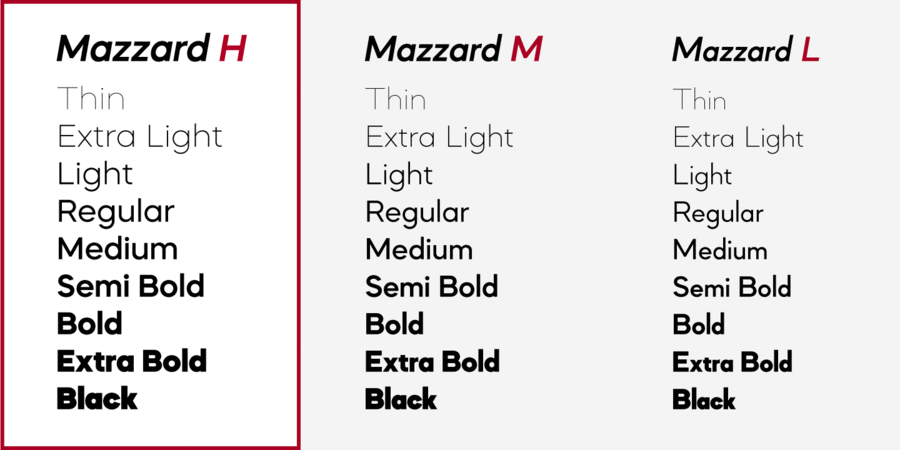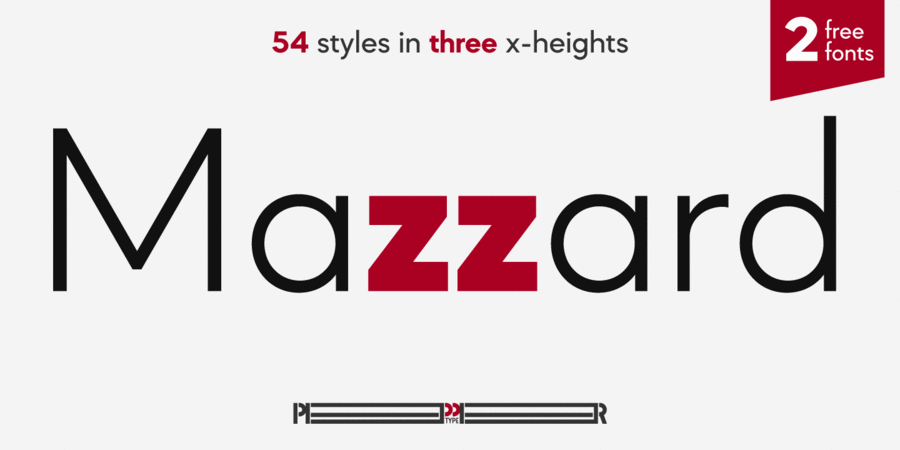
About Mazzard H is a part of a font superfamily Mazzard. This family has high lowercase characters. The superfamily contains of three geometric grotesques with three different x-heights. It features rich language support and offers a wide variety of alternate forms to choose from. The typeface was designed by Oleh Lishchuk in 2019.
Hit of 2010s Mazzard H supports 83 languagesUkrainian, English, German, Polish, Portuguese, Spanish, French, Russian, Czech, Dutch, Italian, Swedish, Turkish, Finnish, Belarusian, Serbian, Bulgarian, Estonian, Lithuanian, Albanian, Afrikaans, Basque, Breton, Valencian, Galician, Gaelic (Scottish), Danish, Indonesian, Irish, Icelandic (Win), Karakalpak, Catalan, Norwegian, Occitan, Rhaeto-Romance, Sami Lule, Tswansky, Uzbek (Lat.), Faroese, Frisian, Chamorro, Estonian (Win), South Sami, Albanian (Win), Hungarian, Upper leprechauny, Karelian, Latvian (Mac), Lithuanian (Mac), Maori (Mac), Moldovan (Lat.), Lower Sorbian, Romanian (Win), Slovak, Slovenian, Turkmen (Lat.), Croatian (Win), Estonian (Mac), Kurdish, Latvian, Maori, Romanian, Abazin, Avar, Agul, Adyghe, Darginsky, Ingush, Kabardino-Circassian, Kabardian, Karachay-Balkar, Kumyk, Lak, Lezghian, Macedonian, Mordovian-Moksha, Mordovian-Erzya, Nogai, Rutulian, Tabasaran, Tatar, Tsakhur, Chechen Functions of font family Mazzard HTypeface use in layout:
Associations for font family Mazzard HTypeface personality and character:
elementary, minimalistic, accurate, flat, static, logical, laconic, stable, automatic, artificial, cold, engineering, urban, cutting, crisp, schematic, clean, modern, sharp, thin, wire, glass, easy, chilly, clear, weightless, transparent, fragile, fashionable, technical, simple, neutral, urbanistic, strict, pragmatic, practical, solid, available, serious, reliable, self-assured, machine, strong, independent, convincing, industrial, technogenic, mandatory, architectural, iron, steel, robust, authoritative, important, motivating, tough, railway, reputable, responsible, ambitious, manly, severe, good quality, rigid, rude, lasting, powerful, significant, fat, formidable, splashy, notable, heavy, dense, close-fitting, monumental, bright, active, loud, daring, proletarian, icy
scheme, design, lotion, Eau de Toilette, fashion, sky, device, engineer, city, science, architecture, technology, innovations, gadget, chemistry, mathematics, urban studies, code, constructor, automation, coworking, furniture, water, equipment, robot, bank note, coin, tool, industry, machine tool, factory, architect, fitness equipment, repairs, steel-maker, news, engine, power station, energy industry, mechanical engineering, press, railway carriage, airsoft, safe, security, protection, metallurgy, footwear, railway, excavator, flag, meeting, blockbuster, thriller, game, action, truck, Freight, trucker, motor, logistics, Delivery Typeface associated with age: